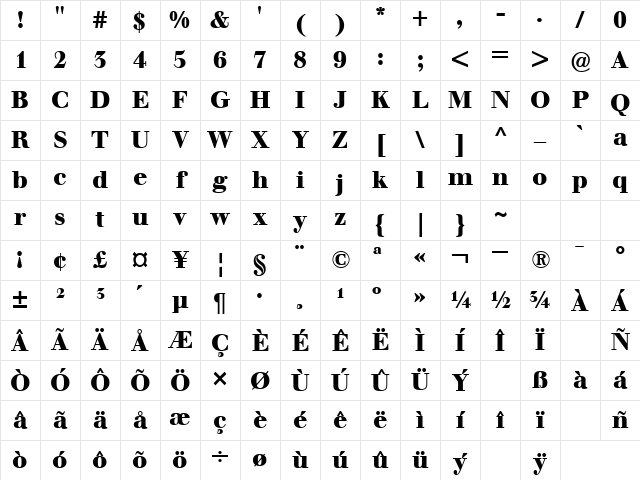
WalterBlack Normal
Design Context for WalterBlack
WalterBlack is a composed and adaptable typeface that performs quietly and consistently across a wide range of design contexts.